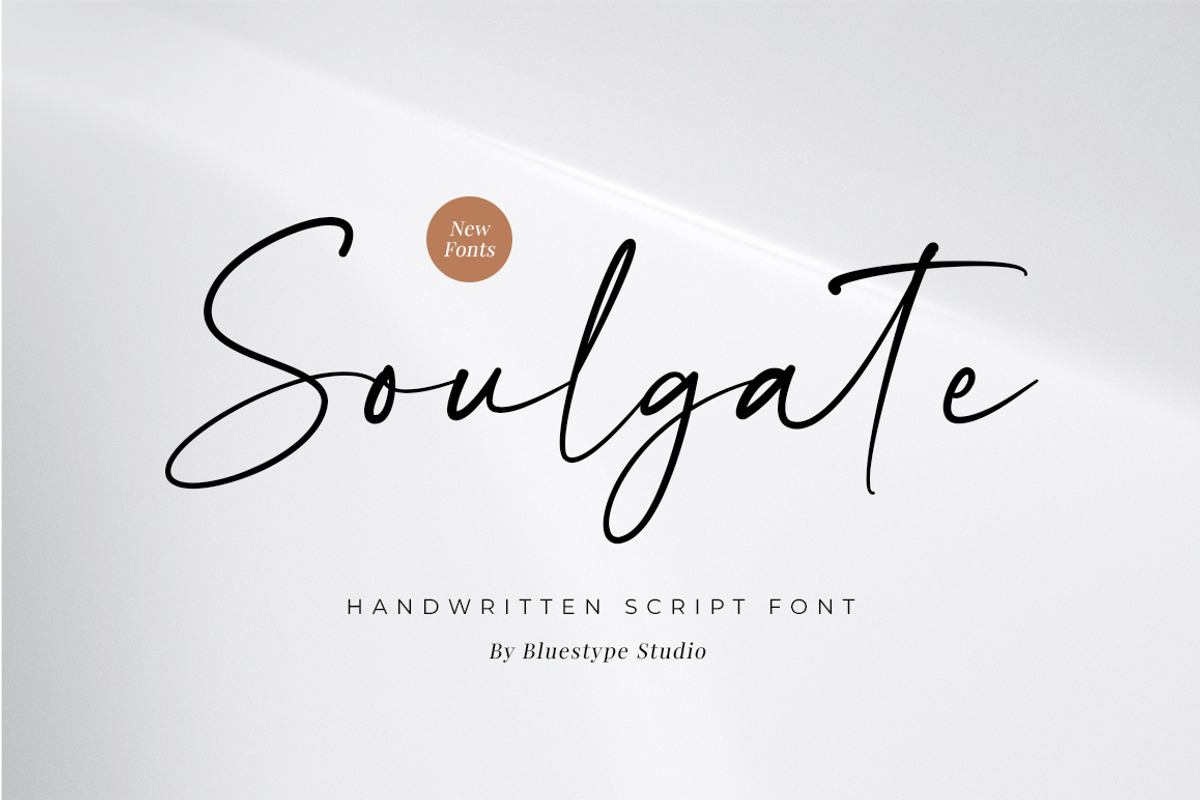
Soulgate - Handwritten Script Font Free Download
Soulgate Font Free Download is a stylish handwritten script typeface designed to add warmth, authenticity, and personality to your designs. With its fluid strokes, natural curves, and elegant letterforms, Soulgate is perfect for branding, social media graphics, invitations, logos, and creative projects that call for a personal, expressive touch.
This font includes uppercase and lowercase letters, numerals, punctuation, and beautiful ligatures, giving your typography a unique handwritten feel with a modern twist. Whether you’re working on a wedding invitation, a personal project, or a brand identity, Soulgate's fluid design adds charm and character.